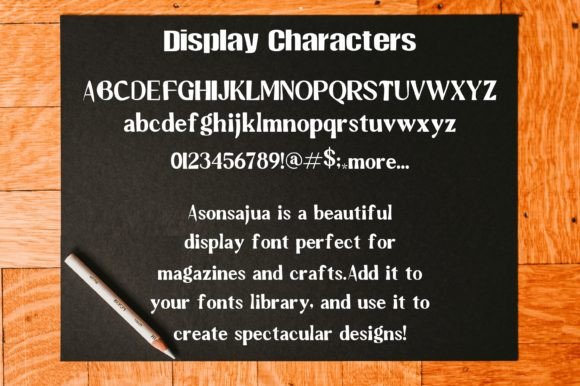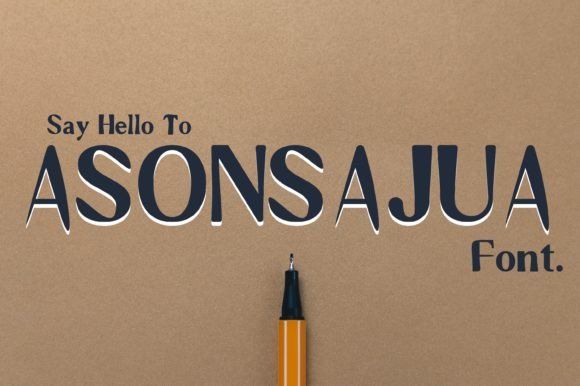
Asonsajua Font: Elevate Your Designs with this Stunning Display Font
Are you a designer, crafter, or DIY enthusiast looking for a font that can add a touch of elegance and sophistication to your projects? Look no further than the Asonsajua Font! This beautiful display font is perfect for magazines, crafts, and any design project that requires a unique and eye-catching typography.
What is Asonsajua Font?
Asonsajua Font is a carefully crafted display font designed to make a statement. Its elegant and refined lines make it perfect for use in magazines, fashion brands, and craft projects. The font’s unique and creative design ensures that your text will stand out from the crowd, grabbing the attention of your audience and leaving a lasting impression.
Key Features of Asonsajua Font
- Perfect for Display Text: Asonsajua Font is designed specifically for display text, making it ideal for headlines, titles, and other prominent text elements.
- Elegant and Refined: The font’s elegant and refined lines give it a sophisticated look that’s perfect for high-end brands and designs.
- Unique and Creative: Asonsajua Font’s unique design ensures that your text will stand out from the crowd, making it perfect for designers and crafters who want to create something truly special.
- Multipurpose: This font can be used in a variety of design projects, from magazines and fashion brands to crafts and DIY projects.
Why Choose Asonsajua Font?
There are many fonts available that can add a touch of elegance to your designs, but Asonsajua Font stands out from the rest. Here are just a few reasons why:
- High-Quality Design: Asonsajua Font is designed with high-quality and attention to detail, ensuring that it looks great in any design project.
- Easy to Read: Despite its elegant and refined design, Asonsajua Font is easy to read, making it perfect for use in body text as well as display text.
- Versatile: This font can be used in a variety of design projects, from print to digital, making it a great addition to any design library.
- Magazine Design: Use Asonsajua Font as a headline or title font to add a touch of elegance to your magazine design.
- Crafting: Add a personal touch to your craft projects with Asonsajua Font, perfect for use in DIY tutorials, patterns, and more.
- Fashion Branding: Use Asonsajua Font to create stunning fashion branding, from business cards to billboards.
In conclusion, Asonsajua Font is a beautiful display font that’s perfect for designers, crafters, and DIY enthusiasts. Its elegant and refined design makes it ideal for use in magazines, crafts, and fashion branding. With its high-quality design, ease of use, and versatility, Asonsajua Font is a great addition to any design library. So why wait? Add Asonsajua Font to your library today and start creating spectacular designs!